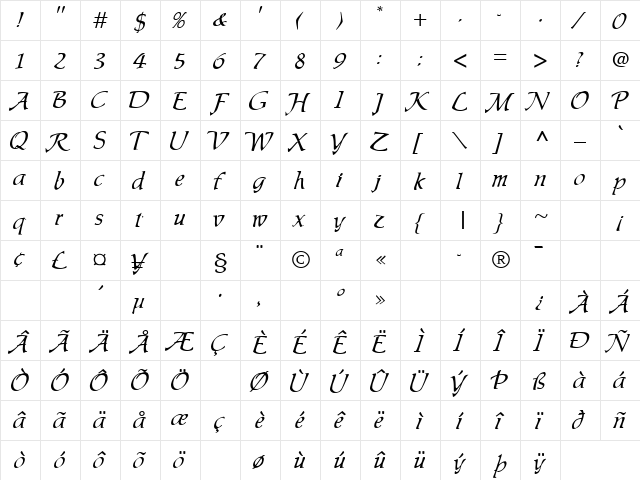
Paulper Regular
Design Context for Paulper Typeface
Paulper is a composed and adaptable typeface that performs quietly and consistently across a wide range of design contexts.